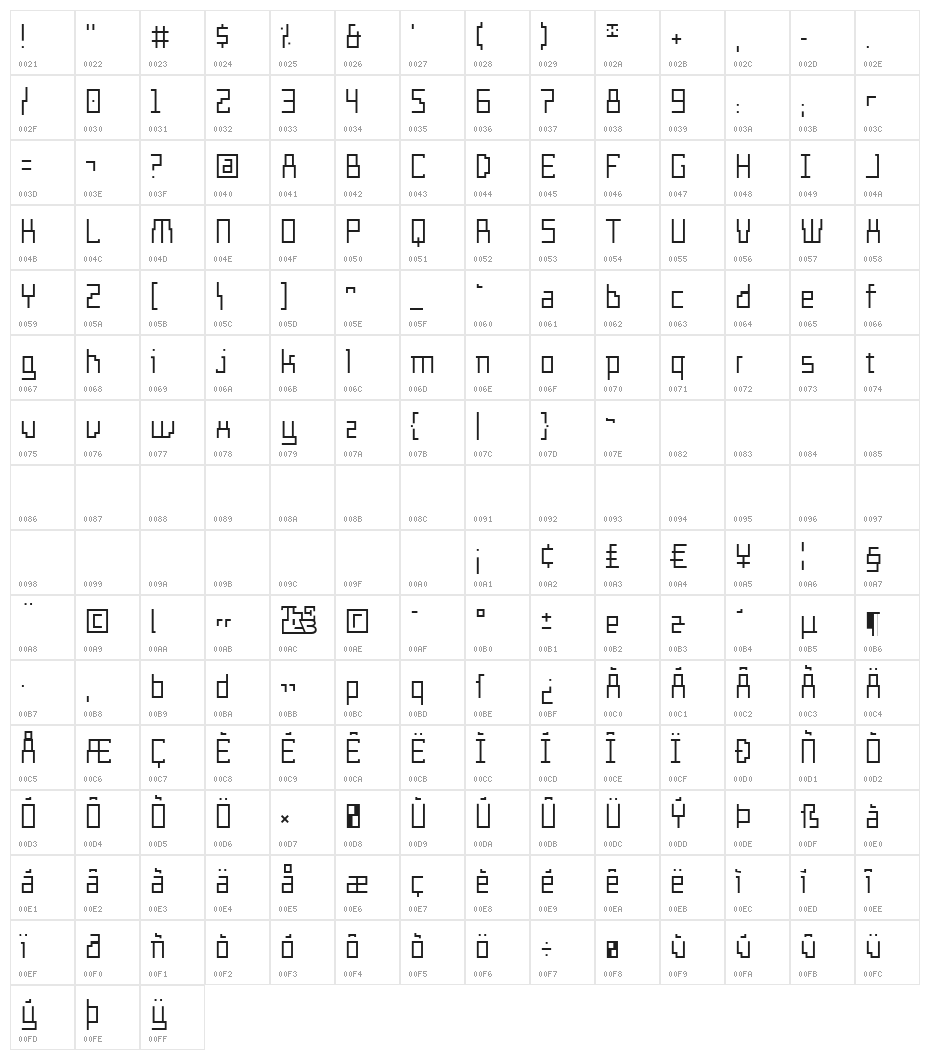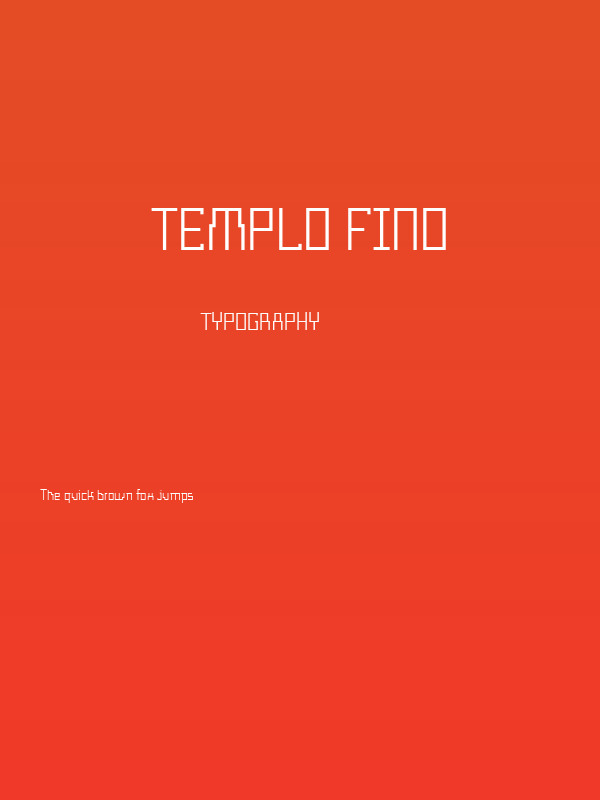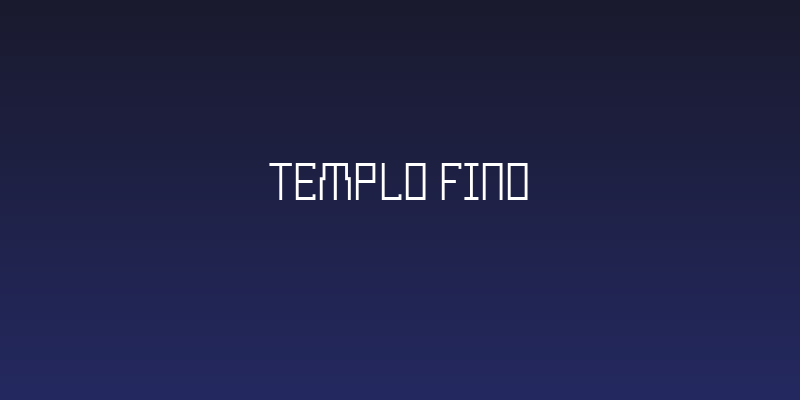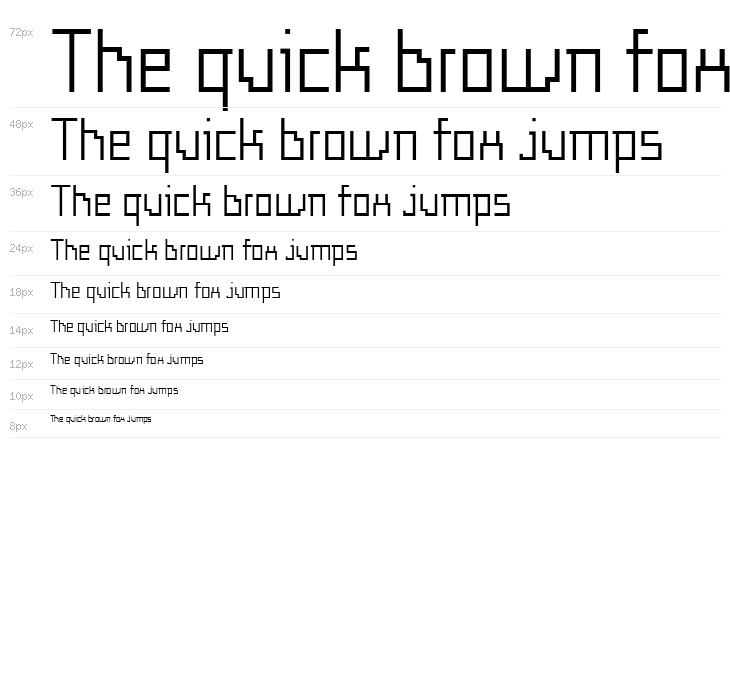
Templo Fino Font
Templo Fino Description
This font features a geometric, grid-like structure with a modern and minimalistic aesthetic. Each character is crafted with straight lines and right angles, giving it a digital, almost pixelated appearance. The uppercase and lowercase letters maintain a consistent height, contributing to a uniform look across the typeface. The numerals and special characters follow the same design principles, ensuring a cohesive visual style. The font's simplicity and clarity make it highly legible, even at smaller sizes. Its unique design is both futuristic and reminiscent of early digital displays, making it suitable for projects that require a tech-savvy or retro-futuristic feel.
| Use Case | Logos, Headlines, Digital interfaces |
| Proposed Projects | Ideal for tech-related branding, digital interfaces, video game graphics, and futuristic-themed designs. |